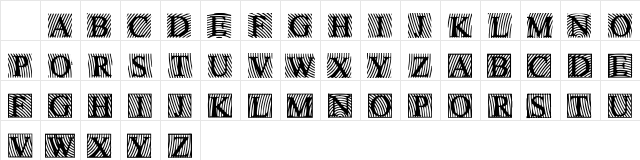
Complete LowEngravedCapsDark Regular glyph index. Displaying only characters natively supported by LowEngravedCapsDark Regular font.
LowEngravedCapsDark is built around its visual character rather than neutral utility - its distinctive forms are designed to make an impression at display sizes.
Font Pairing: Pair with a clean neutral sans-serif for body copy to let LowEngravedCapsDark's character lead without overwhelming the composition.
Pro Tip: Use LowEngravedCapsDark exclusively at display sizes - it was designed to be seen, not read at length. Let a neutral companion handle body copy.